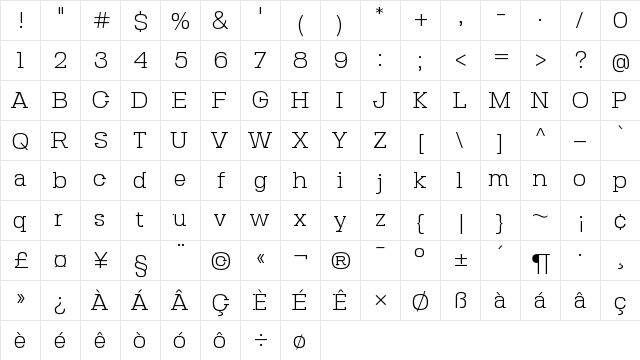
Seb Slab Light Regular
Design Context for Seb Slab Light Typeface
Seb Slab Light combines the readability of serif typography with the visual weight of a slab construction, resulting in a typeface that feels both authoritative and approachable. The delicate stroke weight brings airiness and refinement to layouts.
Suited to magazines, political campaign materials, bold packaging, and any setting where authority matters.
Pro Tip: Use Seb Slab Light for headlines and subheadings where its slab serifs can make an impression. It also holds up well in mid-size body copy thanks to its sturdy construction.